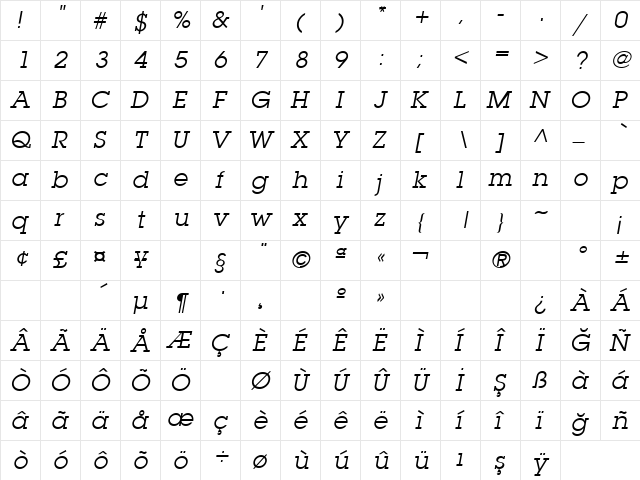
TR McLean Italic
Design Context for TR McLean Typeface
TR McLean takes a measured approach to typography — its balanced proportions and neutral character make it a reliable workhorse for both digital and print work. Its italic angle brings a sense of urgency and motion to the letterforms.
Pro Tip: Use TR McLean for emphasis, pull quotes, and subheadings where its slanted energy can add rhythm to the layout.